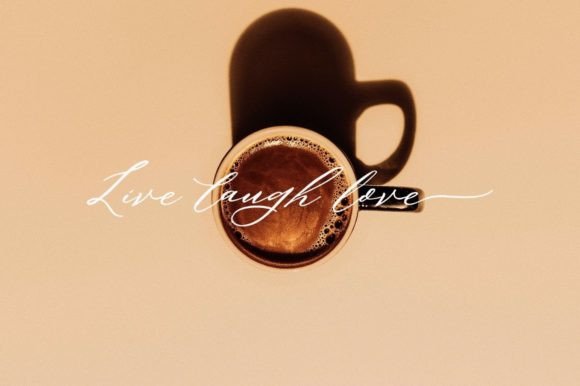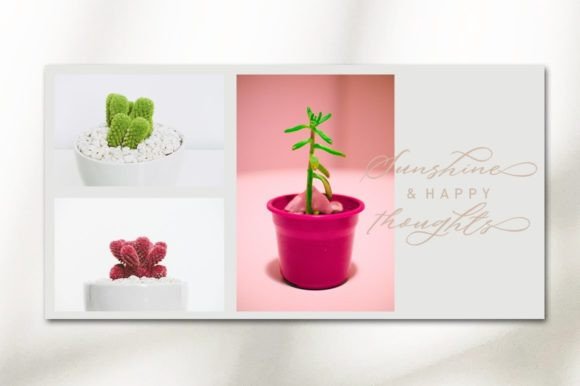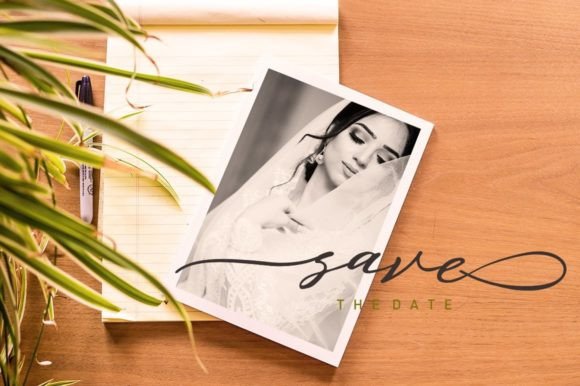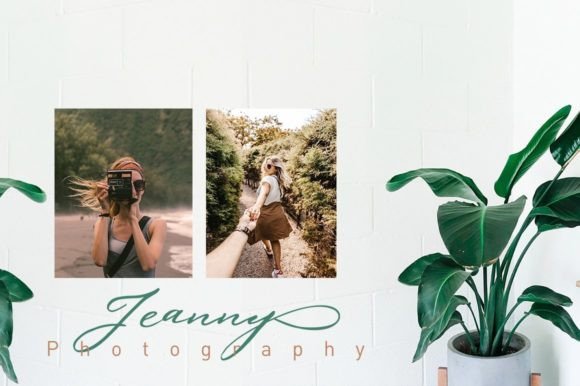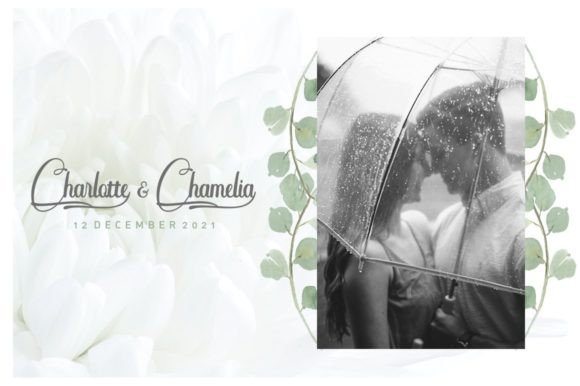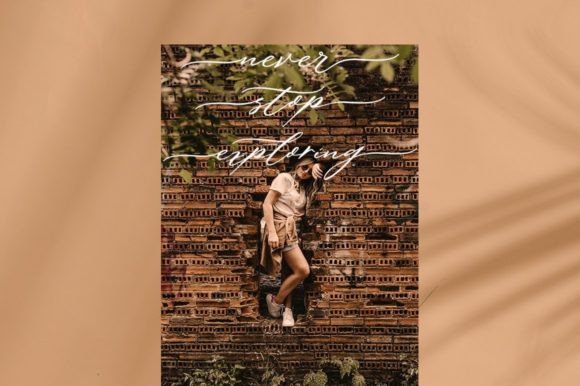
Introducing Anthony Font: Elevate Your Designs with Luxurious Elegance
Are you on the hunt for a font that exudes luxury and elegance? Look no further than Anthony Font, a stunning brush font duo that is sure to take your designs to the next level. This beautiful script and handwritten font combination comes with a plethora of alternates and ligatures, allowing you to create unique and captivating designs that will leave a lasting impression.
A Font Duo Like No Other
Anthony Font is not just a single font, but a duo that offers two distinct styles: script and handwritten. This allows you to mix and match the two to create a harmonious blend that suits your creative work. The script font boasts a classic, sophisticated look, while the handwritten font adds a touch of whimsy and playfulness. Whether you’re working on a branding project, logo design, or greeting card, Anthony Font has got you covered.
Luxurious and Elegant with a Dancing Baseline
One of the standout features of Anthony Font is its luxurious and elegant feel. The font’s dancing baseline gives it a sense of movement and fluidity, making it perfect for designs that require a touch of sophistication. The elegant lines and curves of the font will add a level of refinement to your designs, making them suitable for high-end branding, weddings, and stationery.
Anthony Font is incredibly versatile and can be used for a wide range of design projects. Here are just a few ideas to get you started:
- Branding: Create a luxurious brand identity with Anthony Font, perfect for high-end fashion, beauty, or lifestyle brands.
- Logos: Design a stunning logo that showcases your brand’s personality and style.
- Greeting Cards: Add a touch of elegance to your greeting cards, perfect for special occasions like weddings, anniversaries, or birthdays.
- Weddings: Use Anthony Font to create beautiful wedding stationery, including invitations, menus, and place cards.
- Stationery: Elevate your stationery designs with Anthony Font, perfect for letterheads, business cards, or notebooks.
- Quotes: Create inspiring quote designs that showcase your favorite phrases or sayings.
Anthony Font is PUA (Private Use Area) encoded, which means you can access all of the glyphs and swashes with ease. This makes it simple to customize your designs and experiment with different combinations of letters and symbols. With PUA encoding, you can:
- Access a wide range of alternate characters and ligatures.
- Easily swap out glyphs and swashes to create unique designs.
- Customize your font to suit your design needs.
Why Choose Anthony Font?
With so many fonts available, why choose Anthony Font? Here are just a few reasons why designers and crafters love this font:
- Unique and versatile: Anthony Font offers a unique combination of script and handwritten styles, making it perfect for a wide range of design projects.
- Elegant and sophisticated: The font’s luxurious feel and elegant lines make it perfect for high-end branding and designs that require a touch of sophistication.
- Easy to use: With PUA encoding, accessing glyphs and swashes is a breeze, making it simple to customize your designs.
Anthony Font is a stunning brush font duo that is sure to elevate your designs to the next level. With its luxurious and elegant feel, dancing baseline, and endless creative possibilities, this font is perfect for designers and crafters looking to add a touch of sophistication to their work. Whether you’re working on a branding project, logo design, or greeting card, Anthony Font is the perfect choice. So why wait? Download Anthony Font today and start creating beautiful, unique designs that will leave a lasting impression.